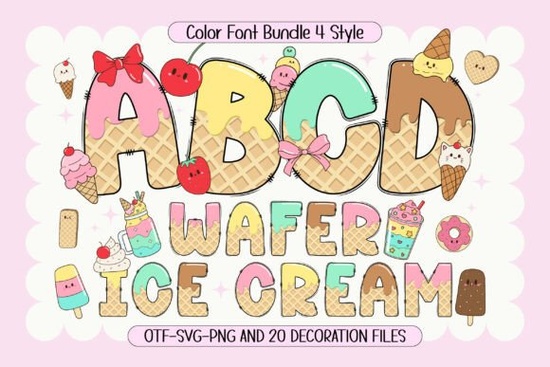
If you're looking for a font that feels fun, colorful, and perfect for sweet-themed designs, the Wafer Ice Cream Font is worth a closer look. It's a playful typeface inspired by ice cream treats, complete with a candy-colored palette and 20 bonus matching clip arts. Whether you're designing Christmas posters, T-shirt graphics, or custom craft projects, this font set brings a cheerful, whimsical energy that's hard to ignore.
This isn't just a single font file. The Wafer Ice Cream package includes 4 vibrant color fonts, each with its own personality and color scheme. On top of that, you get 20 bonus cute clip art illustrations that match the font's style perfectly. That means you can pair the lettering with coordinating graphics without hunting for separate assets.
The clip arts are great for:
- Spot illustrations on party invitations
- Decorative accents on T-shirt designs
- Embellishments for sticker sheets and planner pages
- Social media post graphics
Having fonts and illustrations that work together saves time and keeps your designs visually consistent.
Who Is This Font Best For?
This font works well for a pretty wide range of creatives. If you fall into any of these groups, it's likely a good fit:
- Print-on-demand sellers who design products like mugs, tote bags, and apparel with fun, eye-catching text
- Small business owners creating branding materials, packaging, or signage for bakeries, dessert shops, or kids' brands
- Crafters and DIY hobbyists making personalized gifts, holiday cards, or scrapbook layouts
- Designers looking for playful display fonts for posters, quotes, or social media content
The sweet, rounded letterforms give designs a friendly, approachable look. It's not the kind of font you'd use for a formal report, but for anything that needs a dose of fun, it works beautifully.
What Projects Does It Work Well For?
Here are some specific ideas where the Wafer Ice Cream Font really shines:
- Christmas and holiday posters the colorful, candy-like style pairs well with festive themes
- Custom T-shirt designs especially for kids' apparel or summer-themed merchandise
- Branding for sweet shops or cafés logos, menus, packaging labels
- Personalized name art wall prints, birthday party decorations, nursery decor
- Quote designs motivational or funny quotes for social media and wall art
- DIY craft projects stickers, greeting cards, gift tags
The color font format means you get those vibrant hues right out of the box, without needing to manually color each letter. That's a real time-saver, especially when you're working on bulk designs for a shop.
How Does It Compare to Other Colorful Fonts?
There are plenty of colorful display fonts out there, so what makes this one stand out? The biggest advantage is the combination of matching fonts and clip art in a single download. Most font packs only include the typeface itself. Here, you're getting a small design kit.
The Wafer Ice Cream Font specifically targets that sweet, playful, dessert-inspired niche which is a popular aesthetic right now in print-on-demand and handmade markets.
- It's a display font. Don't expect to use it for body text or long paragraphs. It's designed for headlines, titles, and short phrases.